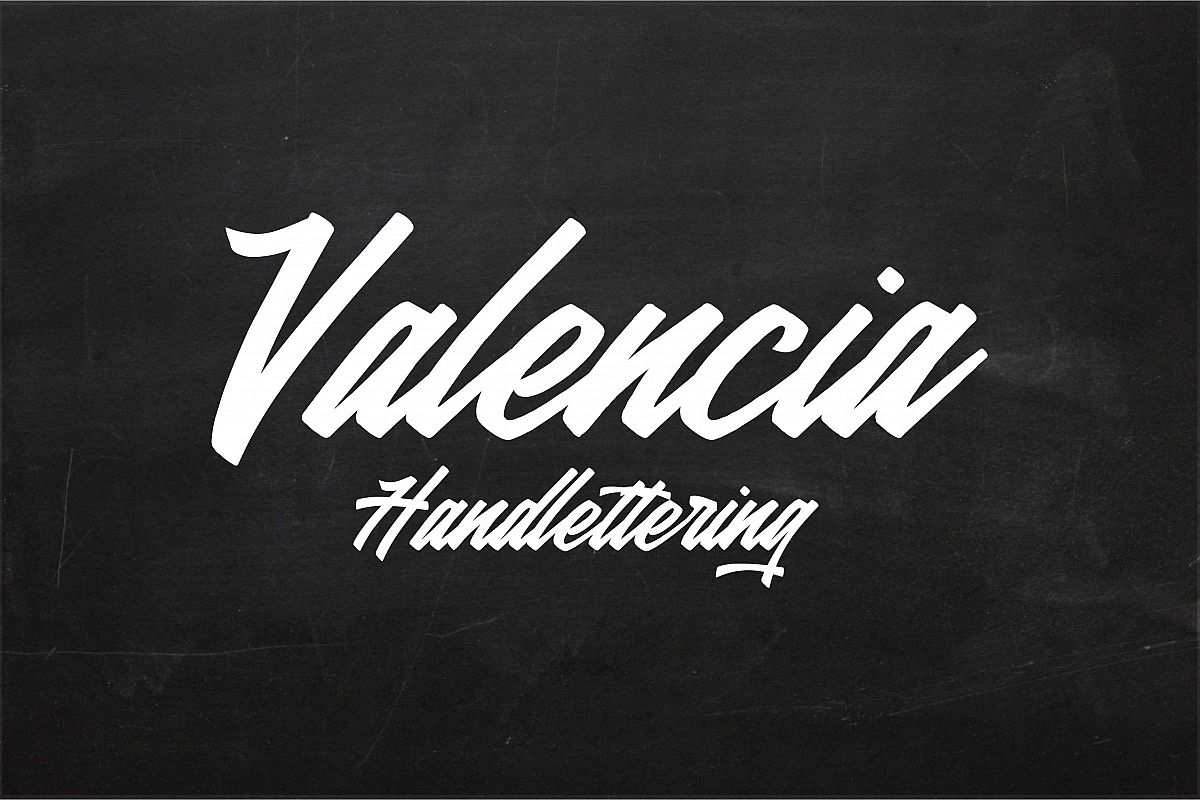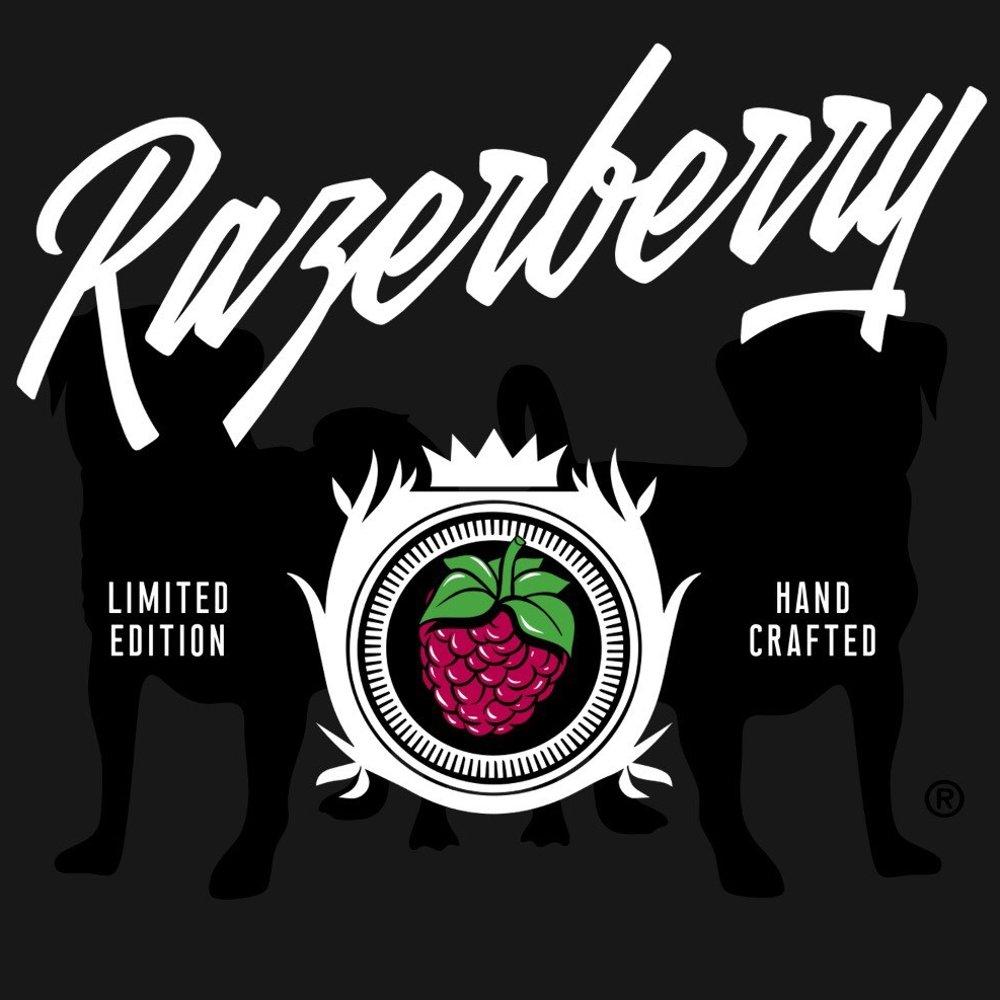
Valencia
INTRODUCING Presents our product Valencia font is vintage style. The font will great for product logo,wedding card logo, clothing brand logo,Vintage design and much more